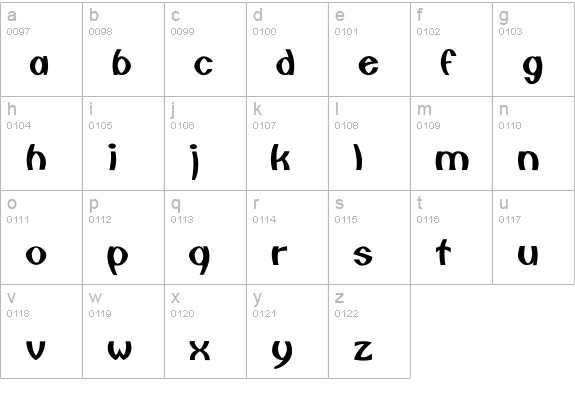
Camberic Font Details
Introducing Camberic font, a beautifully crafted typeface that exudes elegance and sophistication. With its unique blend of modern and classic design elements, Camberic is perfect for a wide range of creative projects, from branding to editorial design. Its sleek lines and stylish curves make it a versatile choice for any project that requires a touch of refinement. What sets Camberic font apart is not just its stunning aesthetics, but also the fact that it is available for free download at FontsMarket.com. This means that you can easily add this exquisite font to your collection without any cost, making it a fantastic resource for designers, artists, and creatives alike. Whether you're working on a logo, website, poster, or any other design project, Camberic font is sure to make a lasting impression. So why wait? Download this exceptional font today and elevate your designs to new heights with its timeless charm and sophistication.